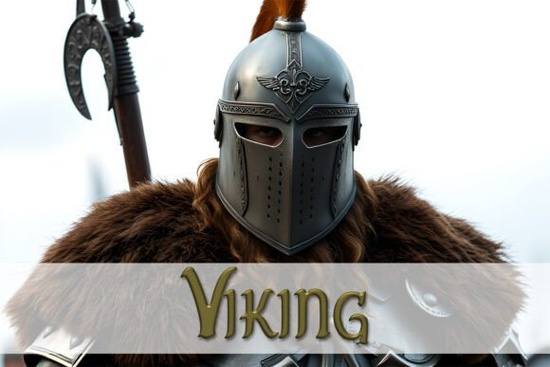
If you’ve been searching for a typeface that captures the rugged spirit of Norse history without looking like a movie prop, the Viking Font might be exactly what your next project needs. Designed with authenticity and versatility in mind, it blends runic inspiration with modern legibility making it ideal for everything from handmade greeting cards to printable planner stickers.
Unlike overly ornate or hard-to-read display fonts, Viking Font strikes a balance between character and clarity. Its bold strokes and angular terminals echo ancient inscriptions, but the letterforms remain clean enough for everyday crafting. Whether you’re personalizing a journal cover or designing themed party invitations, this font adds atmosphere without sacrificing usability.
What kinds of projects work best with Viking Font?
Crafters and small business owners often turn to thematic fonts like this one when they want their designs to tell a story. Here are a few practical uses where Viking Font really shines:
- Scrapbooking and memory keeping – Use it for photo captions or title headers that evoke adventure and legacy.
- Custom stationery – Birthday invites, thank-you notes, or even wedding place cards with a Nordic twist.
- Print-on-demand merchandise – T-shirts, mugs, or tote bags featuring quotes from sagas or original phrases with historical flair.
- Planner dividers and sticker sheets – Add structure and personality to organizational tools with bold section labels.
- Fabric and wrapping paper design – Pair the font with knotwork or shield motifs for cohesive, handcrafted textures.
Because it’s a display font, it’s best used at larger sizes think headlines, logos, or short phrases rather than body text. That said, its clean lines hold up well even when scaled down slightly for tags or labels.
Tips for using Viking Font effectively
To get the most out of this typeface, keep a few design principles in mind:
- Pair it wisely. Since Viking Font has strong visual weight, pair it with a simple sans-serif (like Montserrat or Lato) for contrast and readability in supporting text.
- Use ample spacing. The angular details benefit from generous letter-spacing especially in all-caps layouts.
- Avoid overuse. One or two prominent words in Viking Font often make more impact than entire paragraphs.
- Layer with texture. Try overlaying the text on parchment-style backgrounds or subtle grunge effects to enhance the historical vibe without overwhelming the design.
Remember, the goal isn’t just to look “Viking-like” it’s to create something that feels intentional and authentic to your audience, whether they’re customers, friends, or fellow hobbyists.
Ready to try it?
If you’re working on a project that calls for strength, heritage, or mythic storytelling, Viking Font offers a grounded yet expressive way to convey that mood. It’s especially useful for creators who want to stand out in niches like historical reenactment merch, fantasy-themed journals, or educational craft kits about Norse culture.
- Is my project focused on short, impactful text (not long paragraphs)?
- Do I have a complementary neutral font ready for secondary text?
- Am I using it to support a clear theme not just as decoration?